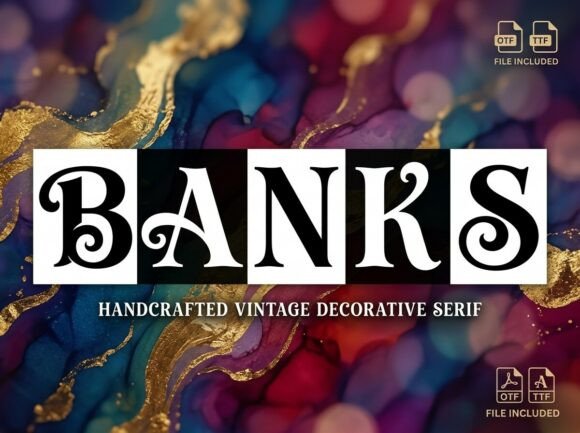
Introducing Banks Font: The Epitome of Authority and Sophistication
In the realm of typography, few fonts manage to convey the essence of power, sophistication, and elegance as effectively as Banks. This authoritative display serif font is designed to command attention and exude a sense of stately refinement, making it the perfect choice for a variety of applications, from finance and architecture to editorial and digital media.
The Distinctive Characteristics of Banks Font
Banks font is distinguished by its sturdy, high-contrast letterforms that boast a unique blend of vintage flair and modern sophistication. One of the standout features of this font is its rhythmic “swan-neck” flourishes and spiraling spurs. These decorative elements not only add a touch of elegance but also serve to bridge the gap between traditional currency aesthetics and contemporary editorial branding.
A Font that Embodies Prestige and Authority
The design of Banks font is deeply rooted in the concept of prestige. Its sharp structural weight and high-contrast letterforms work in tandem to create a sense of grandeur and sophistication. This makes it an ideal choice for independent finance houses looking to establish a strong and authoritative brand identity. Similarly, boutique architecture firms can leverage the font’s stately and refined appearance to convey a sense of luxury and expertise.
Versatility in Application
Banks font is not limited to finance and architecture; its versatility extends to a wide range of applications. For premium editorial layouts, the font’s authoritative and sophisticated personality shines through, adding a touch of elegance to any publication. Moreover, its sharp and structural weight makes it perfect for high-impact social media headers, where grabbing the audience’s attention is paramount.
Why Choose Banks Font?
For designers and crafters looking for a font that embodies both authority and sophistication, Banks is an unparalleled choice. Here are a few reasons why:
- Unique Aesthetic: The font’s distinctive “swan-neck” flourishes and spiraling spurs set it apart from more traditional serif fonts, offering a unique aesthetic that can elevate any brand or publication.
- Versatility: Banks font is designed to be versatile, making it suitable for a variety of applications, from digital media to print.
- Authority and Sophistication: The font exudes a sense of authority and sophistication, making it perfect for brands looking to establish a prestigious image.
Implementation and Usage
Banks font is a powerful tool for designers and crafters aiming to imbue their projects with a sense of authority, sophistication, and elegance. Its unique blend of vintage and modern elements, coupled with its versatility and prestigious personality, make it an excellent choice for a wide range of applications. Whether you’re working on a finance house identity, a boutique architecture logo, a premium editorial layout, or a high-impact social media header, Banks font is sure to command the room and leave a lasting impression.